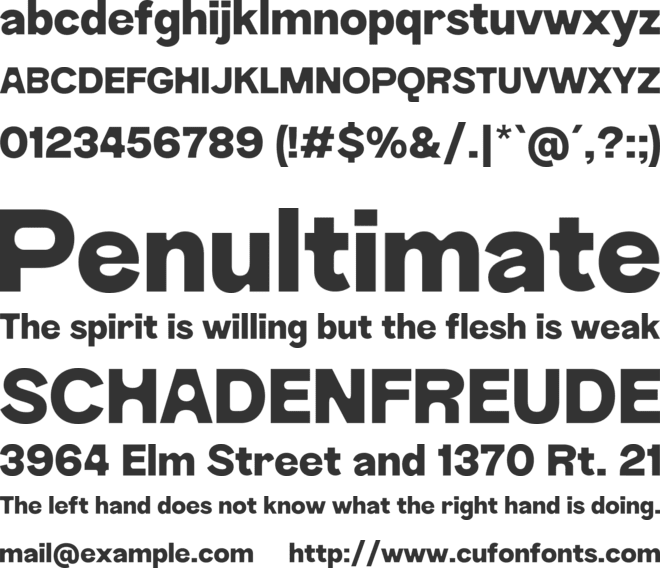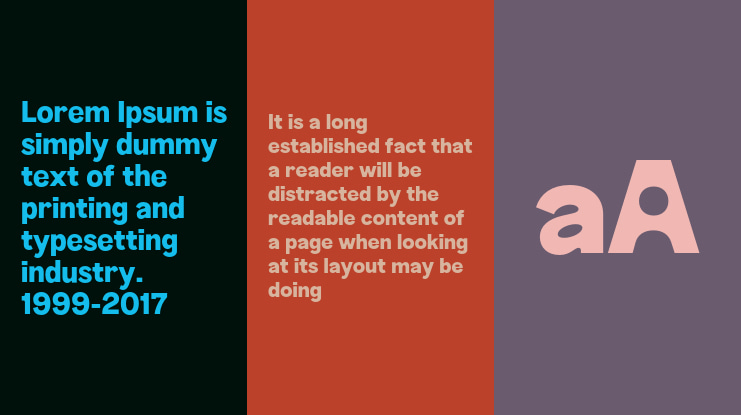
Jolicia Type Foundry
SORPANT is a modern display typeface that transforms classic
sans serif design with uniquely rounded counters and a bold
contemporary presence. Combining clean geometric structure
with soft inner curves, it creates a distinctive visual rhythm that
feels refined, approachable, and memorable. Perfect for
branding, headlines, posters, editorial layouts, packaging, and
modern creative projects, SORPANT delivers clarity,
personality, and strong visual impact in every composition.